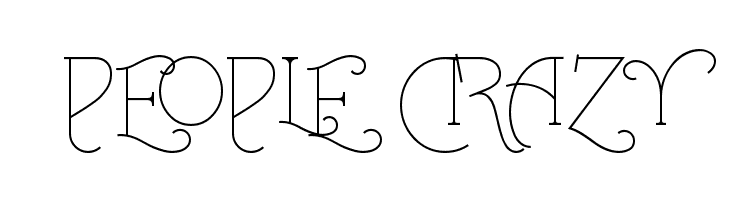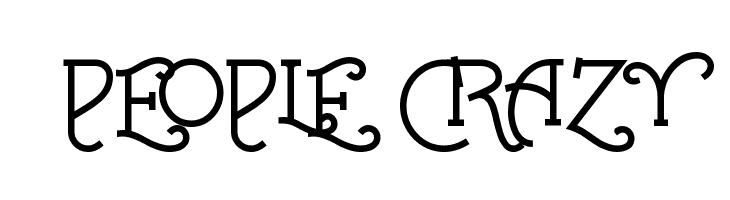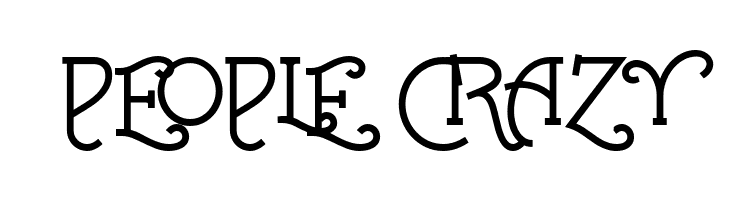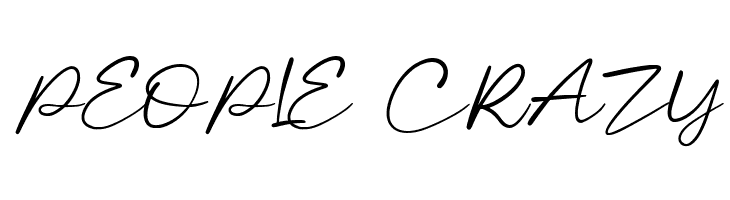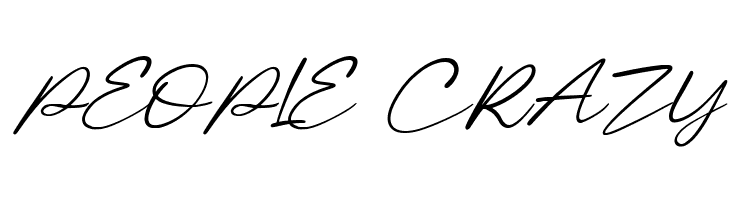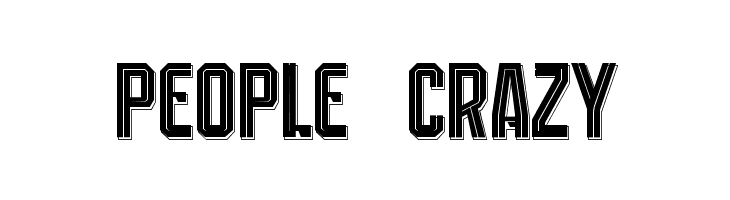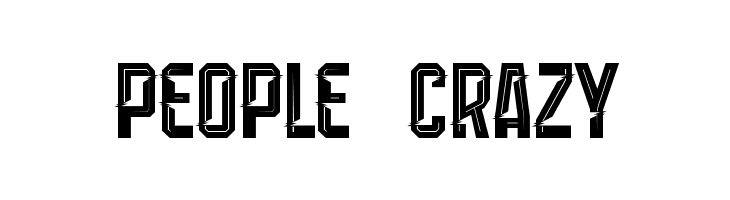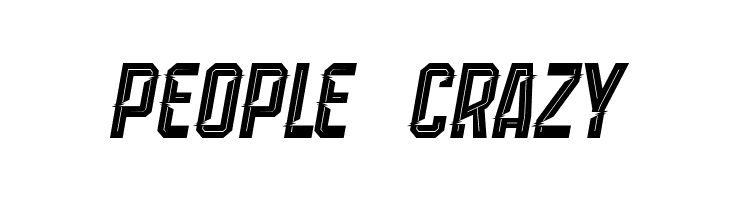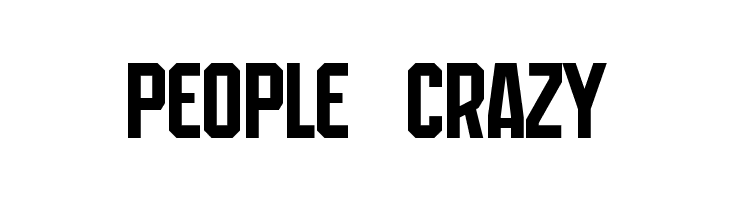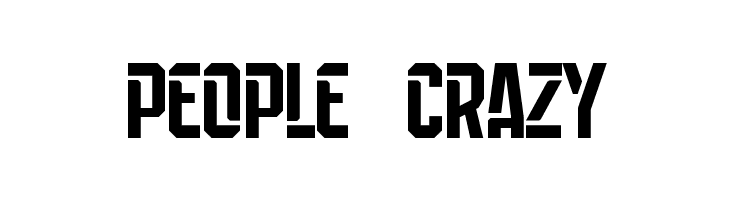
• CABNDWebBold
A bold, modern sans-serif font with clean lines and geometric shapes.
• CABoiledBeef-Rg
A bold, distressed font with a grunge, textured style.
• Cabold Comic
A bold, playful font with thick strokes and rounded edges, ideal for comic-style designs.
• CACasinoStardust-Regular
A bold, retro-inspired font with dynamic geometric shapes.
• cacavia01
A bold, textured font with a vintage, distressed style.
• Cactus Sandwich
A playful, cactus-themed font with spiny, decorative characters.
• Cactus Sandwich Fill
A playful, decorative font with cactus-like embellishments and bold characters.
• Cactus Sandwich Fill FM
• Cactus Sandwich FM
• Cactus Sandwich Plain
A playful, bold, and outlined font with a whimsical, hand-drawn style.
• Cactus Sandwich Plain FM
• CactusBlossom
A bold, spiky decorative font with a playful cactus-inspired design.
• cadabra DEBILEX
A bold, decorative font with intricate geometric patterns and a gothic influence.
• Cafe Rojo
A bold, playful serif font with thick, rounded serifs and strong character presence.
• Cage Regular
A whimsical, hand-drawn font with irregular strokes and a playful style.
• CAGingerMint
A bold, 3D-effect font with strong shadows and a playful, modern style.
• CAGingerMintFill
Bold, geometric font with a strong, modern presence.
• Cake!
A bold, playful font with thick, rounded strokes and a hand-drawn feel.
• CAKissKissBangBang
A bold, italicized font with a strong, modern presence.
• Calamity Jane NF
An elegant, decorative font with intricate swirls and vintage charm.
• Calamity Jane NF Bold
A bold, decorative font with ornate serifs and intricate details.
• CalamityJaneNF
An elegant, whimsical font with thin lines and decorative flourishes.